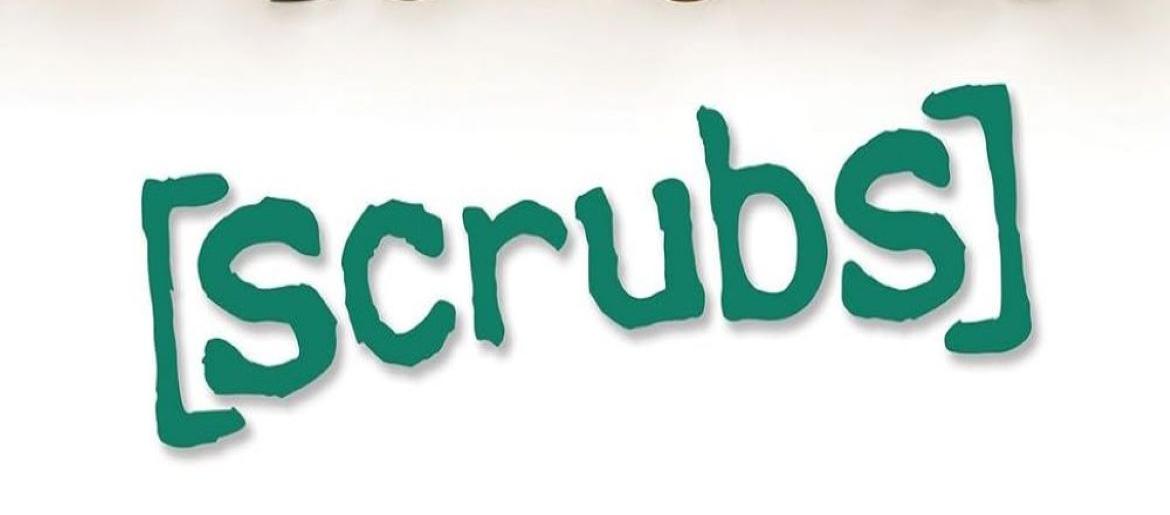
Scrubs Font
The Scrubs font captures the warm, humorous, and slightly quirky personality of the iconic medical comedy series. Its friendly, casual lettering reflects the show’s blend of heartfelt storytelling and lighthearted fun, making it an excellent choice for projects that need an inviting yet professional touch. Whether you’re designing healthcare materials, playful graphics, or medical-themed content with a positive tone, this font brings a sense of charm and approachability. Its upbeat style makes any design feel more human, echoing the show’s unique mix of compassion, comedy, and connection.
About Scrubs
Scrubs is a popular American medical comedy-drama that premiered in 2001. The series follows the journey of young doctor John “J.D.” Dorian as he begins his career at Sacred Heart Hospital. Along with his colleagues and friends, J.D. navigates the challenges of medicine, personal growth, and the often chaotic but meaningful moments of hospital life. Blending humor, imagination, and emotional storytelling, the show earned a strong fan base and became known for its heartfelt depiction of both the struggles and joys of becoming a doctor.